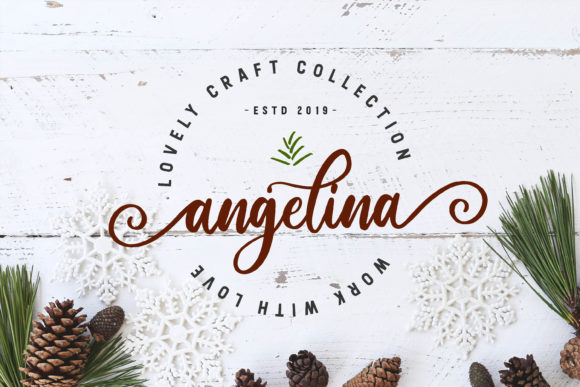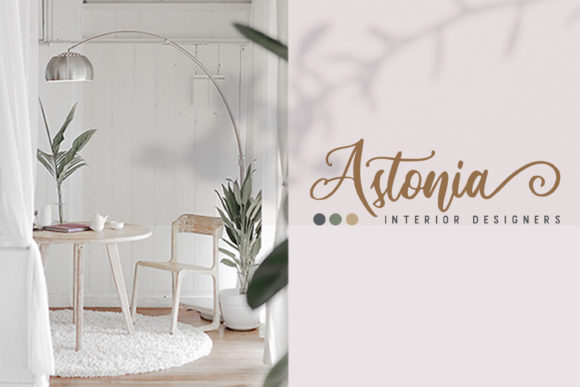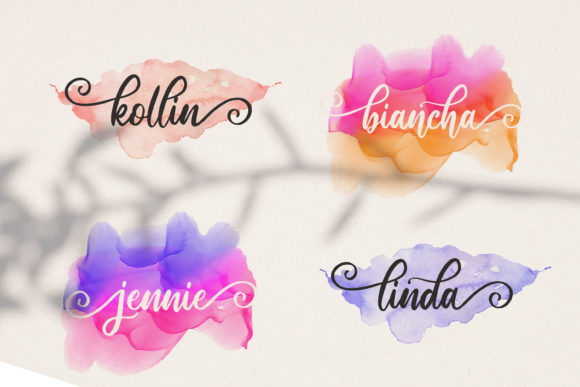
Introduction to Routher Script Font Font
Fonts play a crucial role in design, and the Routher Script Font font is a typeface that brings both character and versatility to any project. Whether you’re working on a branding project, a website, or a print design, the Routher Script Font font offers a unique style that can elevate your work.
The Routher is a beautiful script font.
It has a modern, yet elegant touch and is perfect for giving your designs a luxurious feel Itβs great for logos & branding, photography, invitations, watermarks, advertisements, and every other design which needs a handwritten feel.
Key Features of Routher Script Font Font
Why Choose Routher Script Font Font?
The Routher Script Font font is more than just a typeface β it’s a design tool that helps you communicate your message with style and clarity. Its unique character set and versatile design make it suitable for a wide range of applications, from elegant invitations to bold headlines.
With its carefully crafted letterforms and balanced proportions, the Routher Script Font font ensures readability and visual appeal across all mediums.
What makes Routher Script Font font special?
The Routher Script Font font stands out with its unique design, exceptional readability, and versatility across various design applications.